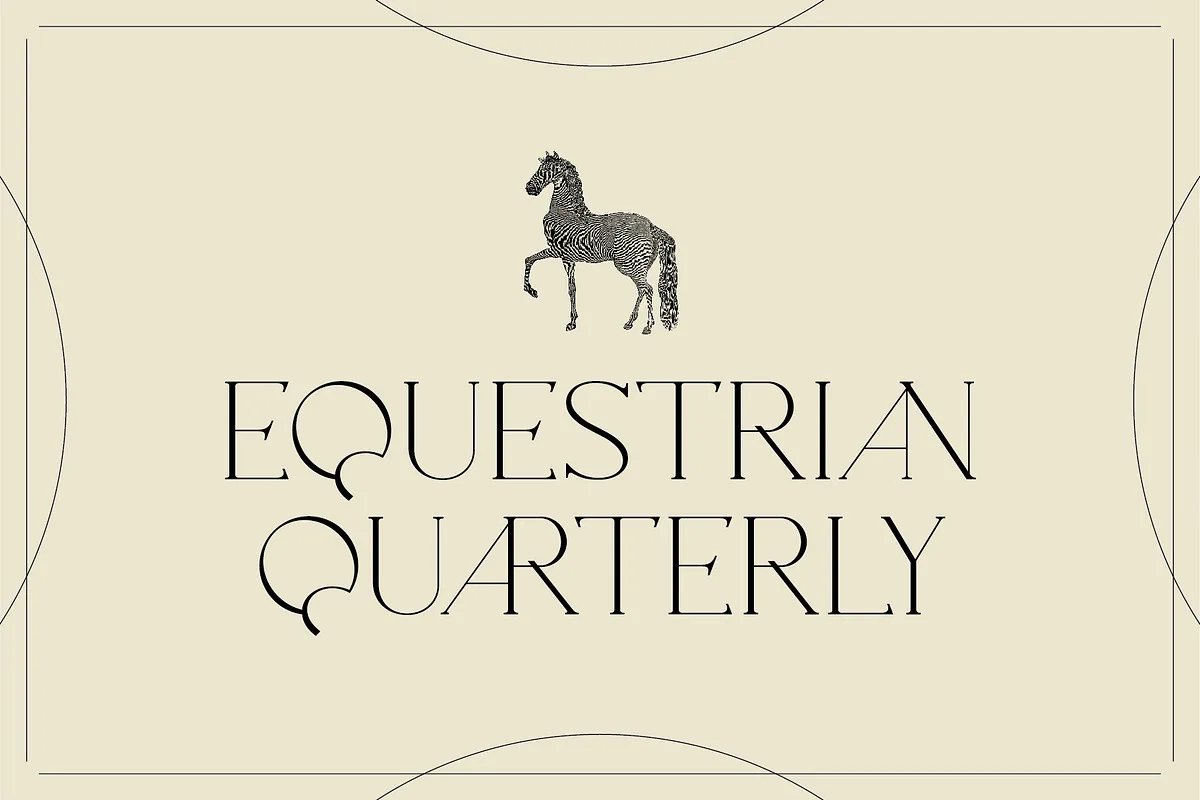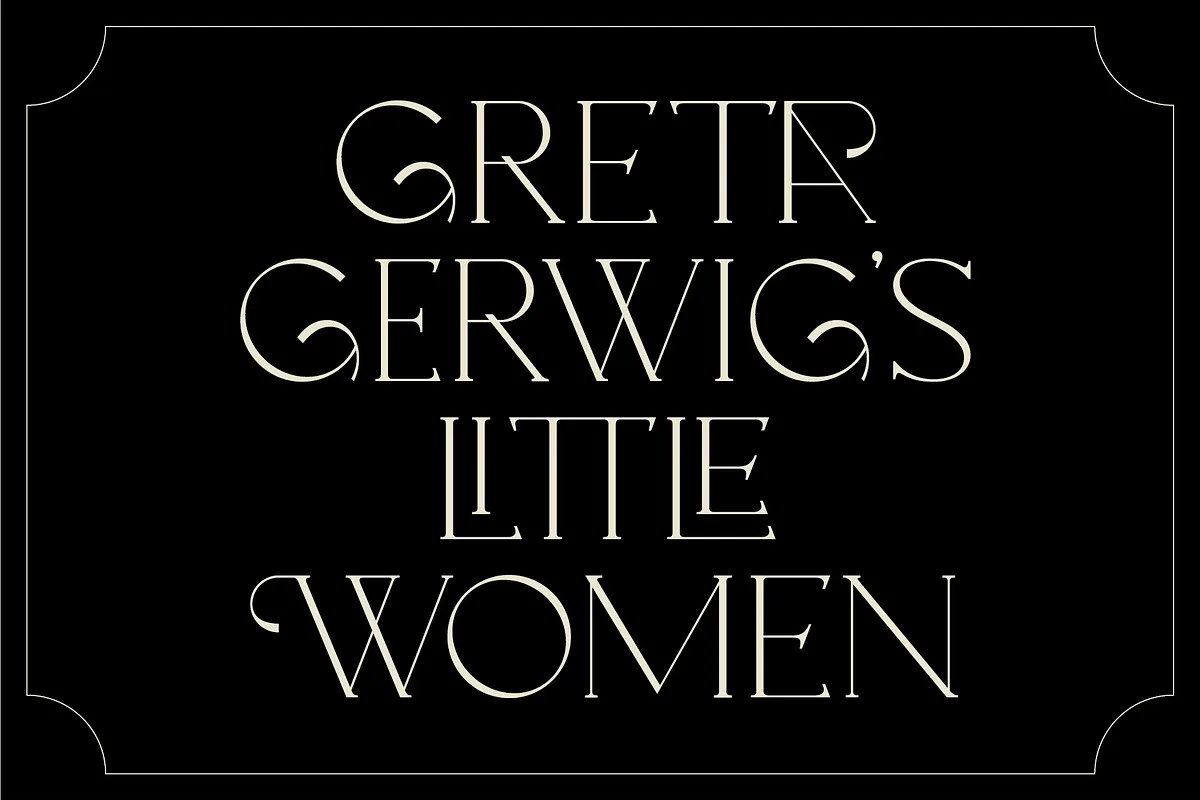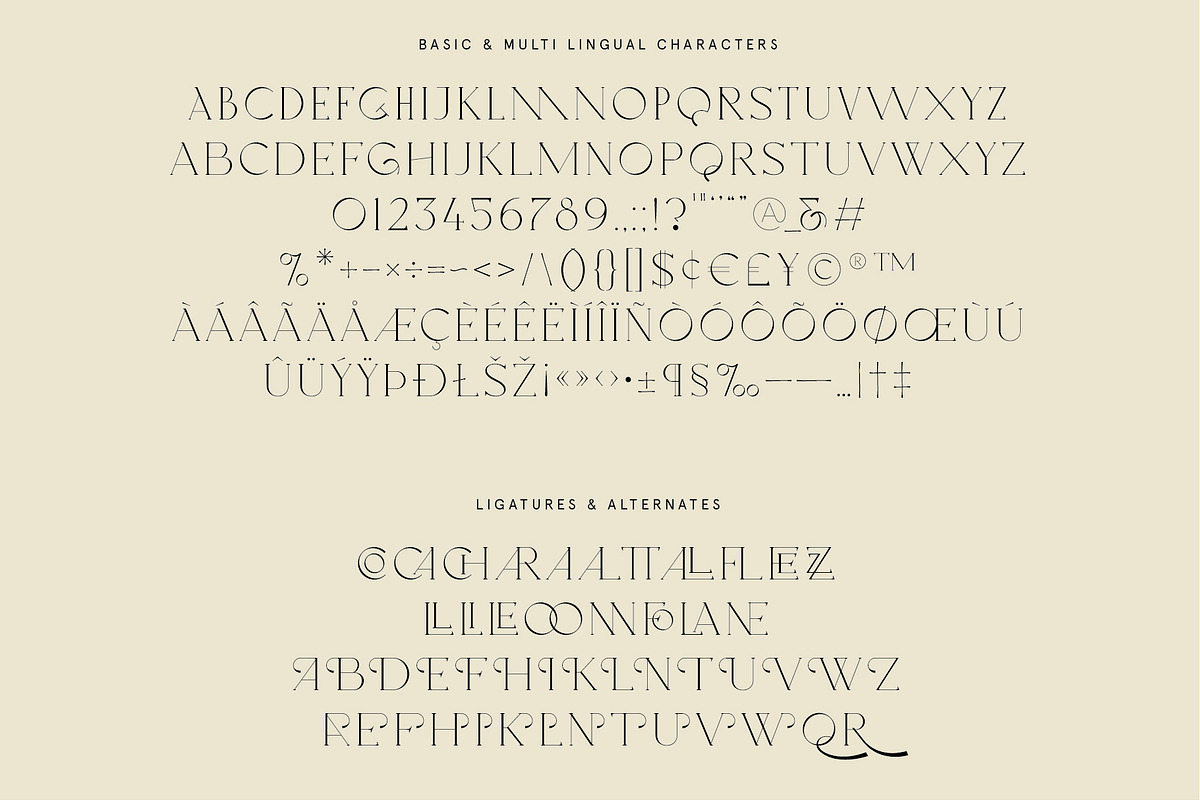
Oakland is a modern, quirky and decorative display serif typeface that comes packed with ligatures and alternate characters perfect for creating variety in your designs.
This is a display font that we recommend using in the following types of work; magazines (titles and layouts), logos and branding, invitations, quotes, blog headers, posters, and advertising.
Language Support: Afrikaans, Albanian, Catalan, Danish, Dutch, English, French, German, Italian Norwegian, Portuguese, Spanish, Swedish and Zulu.
- Uppercase and lowercase glyphs
- Punctuation
- Numbers
- Multilingual support
- Unique ligatures glyphs
- Many alternate characters